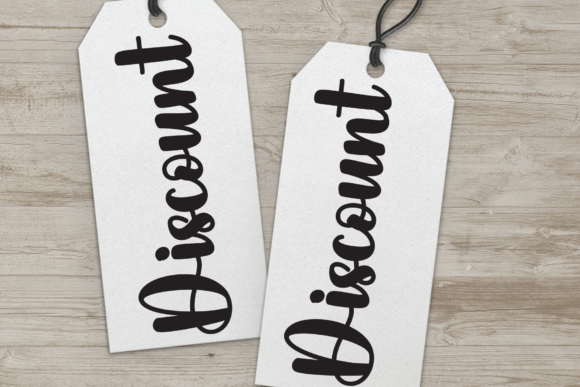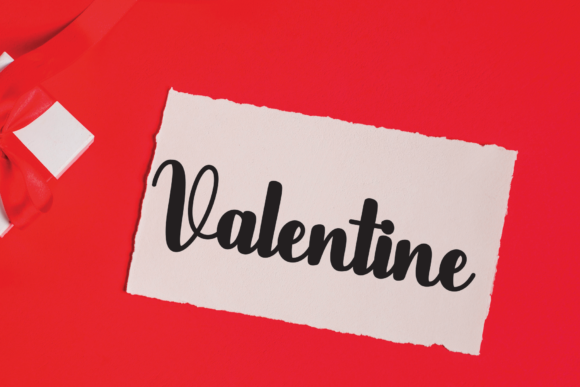
Knitting Font
db-ku.com - Script & Handwritten -- this is a simple and thin case script font. Fall in love with its ravishing style and use it to create gorgeous wedding invitations, beautiful stationary art, engaging social media posts and more!